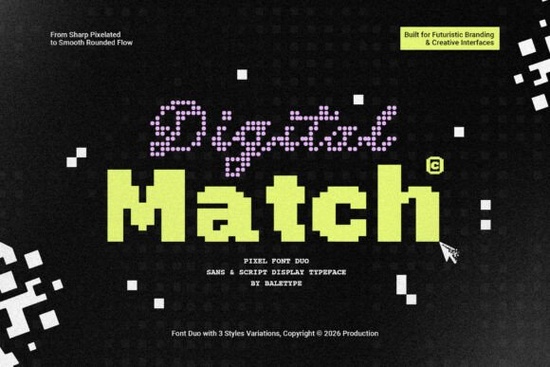
If you're on the lookout for a versatile and modern font that can add a unique touch to your projects, the Digital Match Font is definitely worth considering. This font duo combines a script and sans style, each with three variants, making it perfect for a wide range of creative needs.
What Makes Digital Match Font Stand Out?
The Digital Match Font is a modern, pixelated font that offers a fresh and futuristic look. It's designed to be highly versatile, with both script and sans styles available in three different variants. This variety allows you to choose the perfect style for your specific project, whether it's a logotype, poster, tech event, or even a game. The font's clean, geometric lines and bold, pixelated edges make it an excellent choice for any design that needs a contemporary, high-tech feel.
How Can You Use Digital Match Font?
The Digital Match Font is incredibly versatile and can be used in a multitude of ways. Here are some ideas:
- Logotypes and Branding: Create a distinctive and modern brand identity with this font. Its unique, pixelated style can help your brand stand out in a crowded market.
- Posters and Flyers: Design eye-catching posters and flyers for events, promotions, or announcements. The font's bold and futuristic appearance will grab attention and convey a sense of innovation.
- Tech Events and Conferences: Use this font for banners, presentations, and promotional materials for tech-related events. Its modern, high-tech aesthetic perfectly complements the theme of such events.
- Game Design: Incorporate the Digital Match Font into your game designs for a sleek, futuristic look. It works well for titles, menus, and in-game text, adding a professional and polished touch.
Why Choose a Font Duo?
A font duo like Digital Match Font offers the advantage of having two complementary styles in one package. The script and sans styles can be used together to create a cohesive and visually appealing design. For example, you might use the script style for headings and the sans style for body text, or vice versa. This flexibility allows you to experiment with different combinations and find the perfect balance for your project.
Support for Multiple Languages
One of the standout features of the Digital Match Font is its support for multiple languages. This makes it an excellent choice for international projects or designs that need to be accessible to a global audience. Whether you're working on a multilingual website, a global marketing campaign, or a product that will be distributed internationally, this font has you covered.
Practical Checklist for Using Digital Match Font
- Identify Your Project Needs: Determine the specific requirements of your project, such as the tone, style, and intended audience.
- Choose the Right Variant: Select the appropriate variant (script or sans) and style (regular, bold, or italic) that best fits your project.
- Experiment with Combinations: Try using both the script and sans styles together to create a harmonious and visually appealing design.
- Test for Readability: Ensure that the font is readable and clear, especially if you're using it for body text or long-form content.
- Consider Language Support: If your project involves multiple languages, make sure to test the font's support for the languages you need.